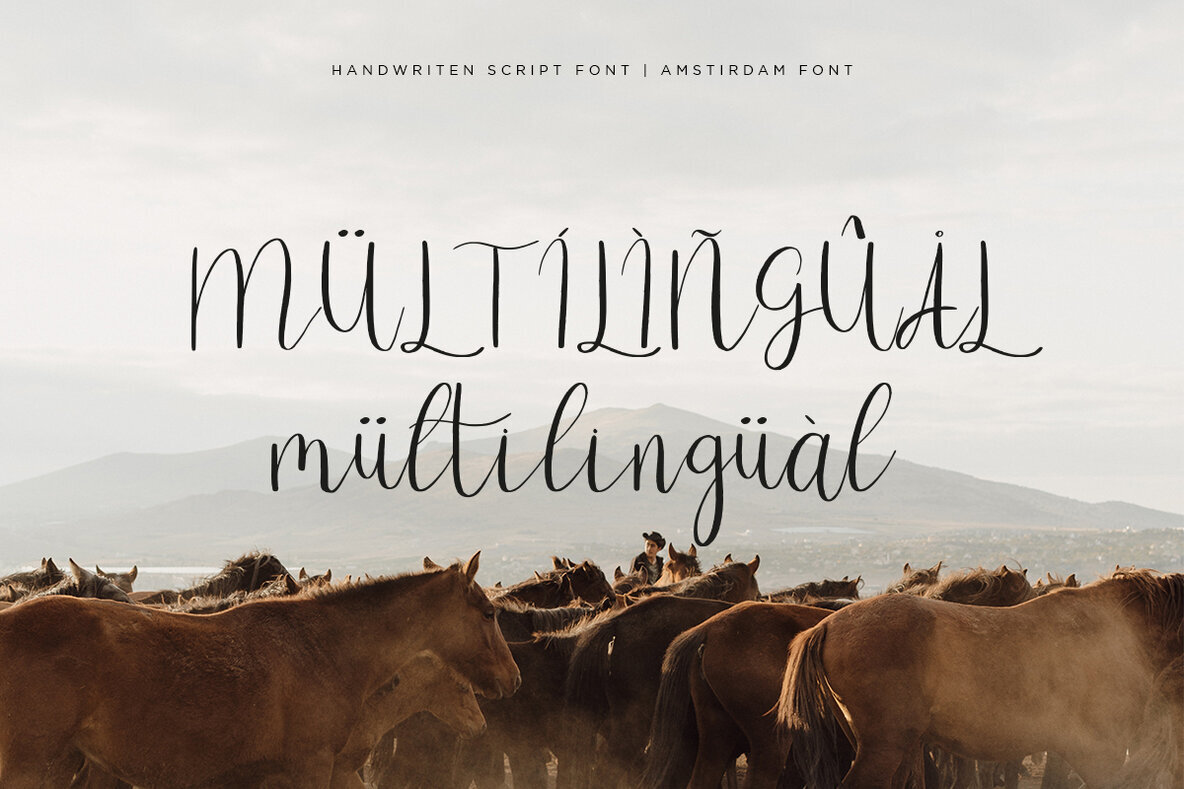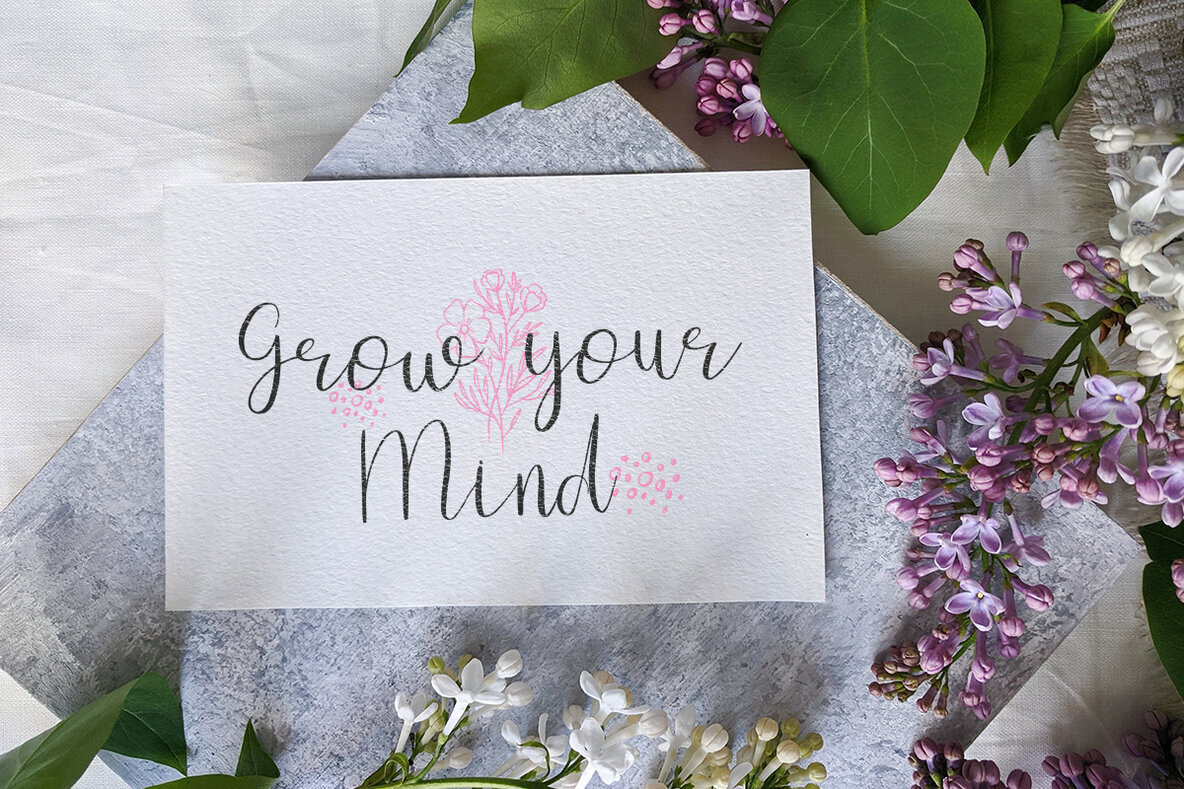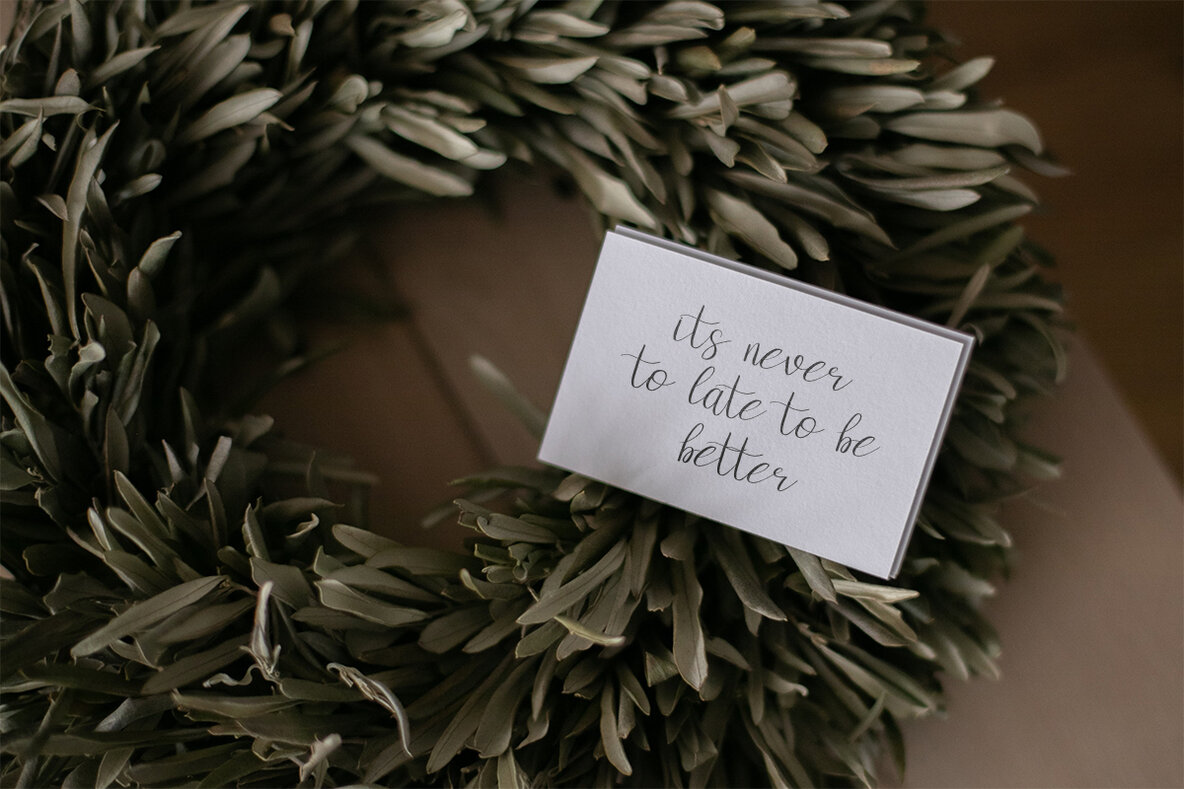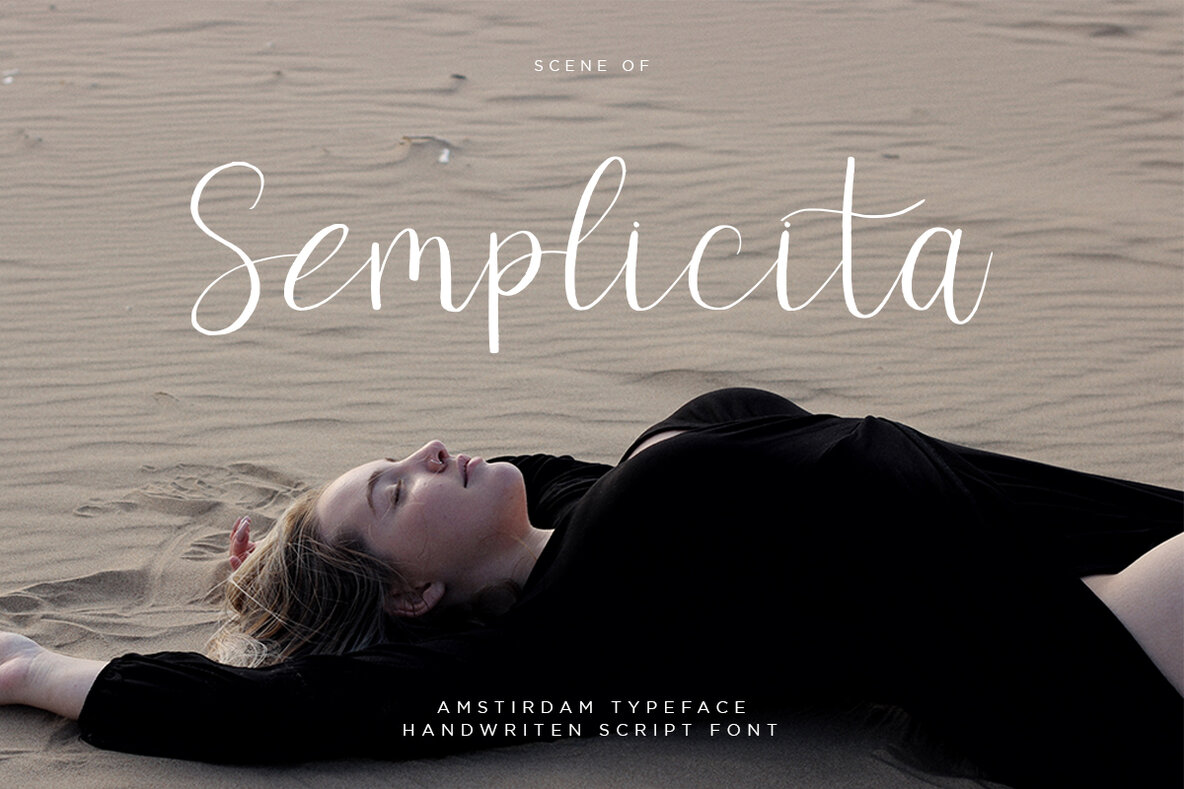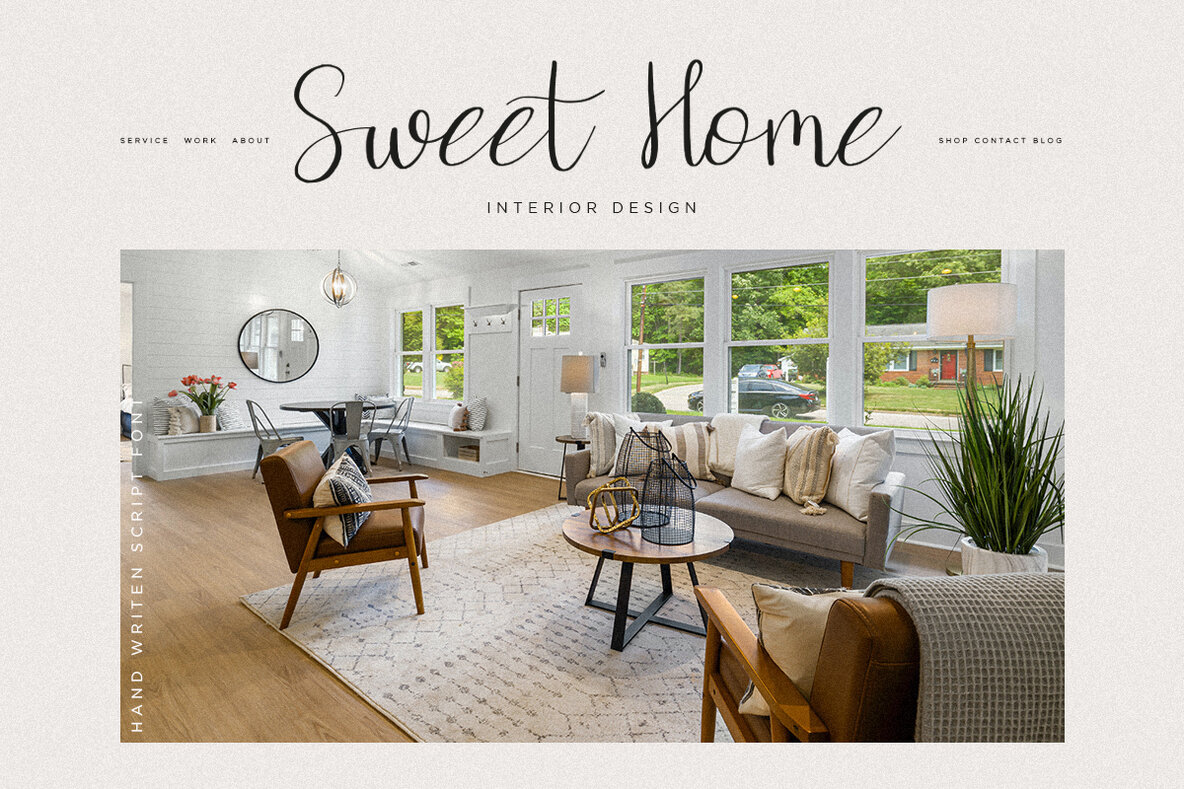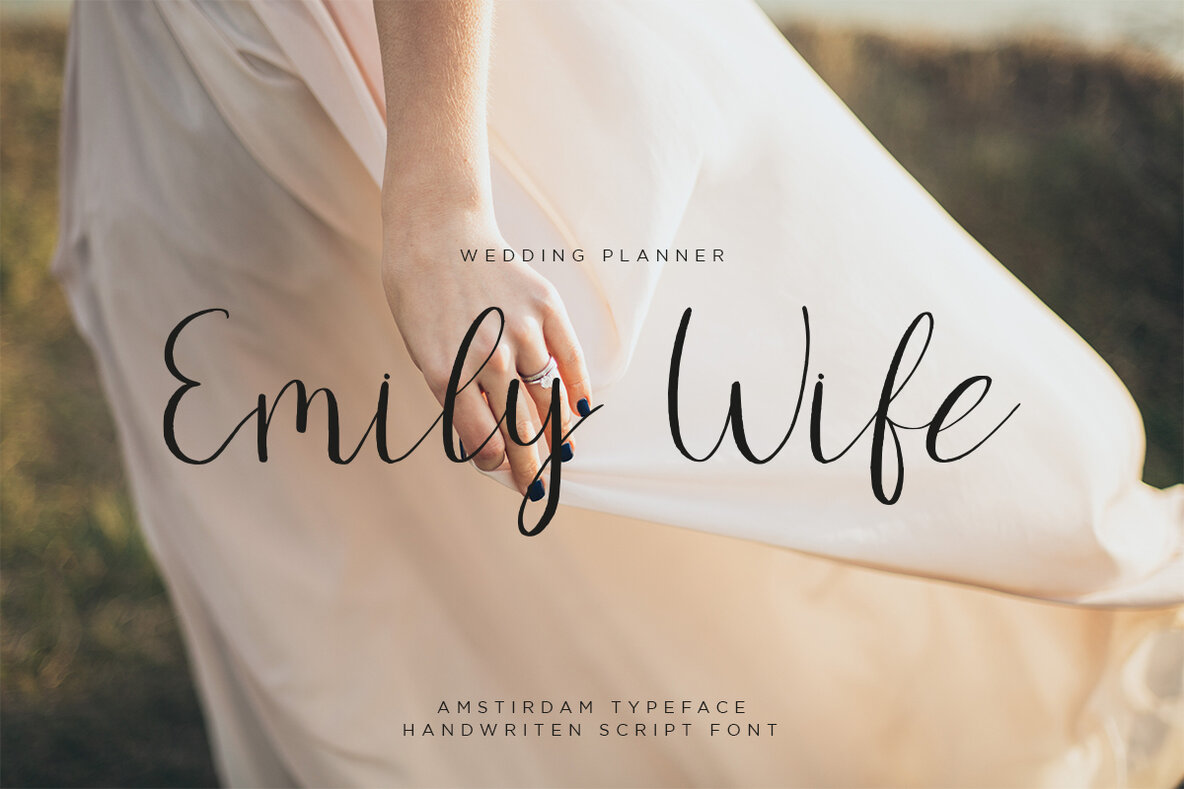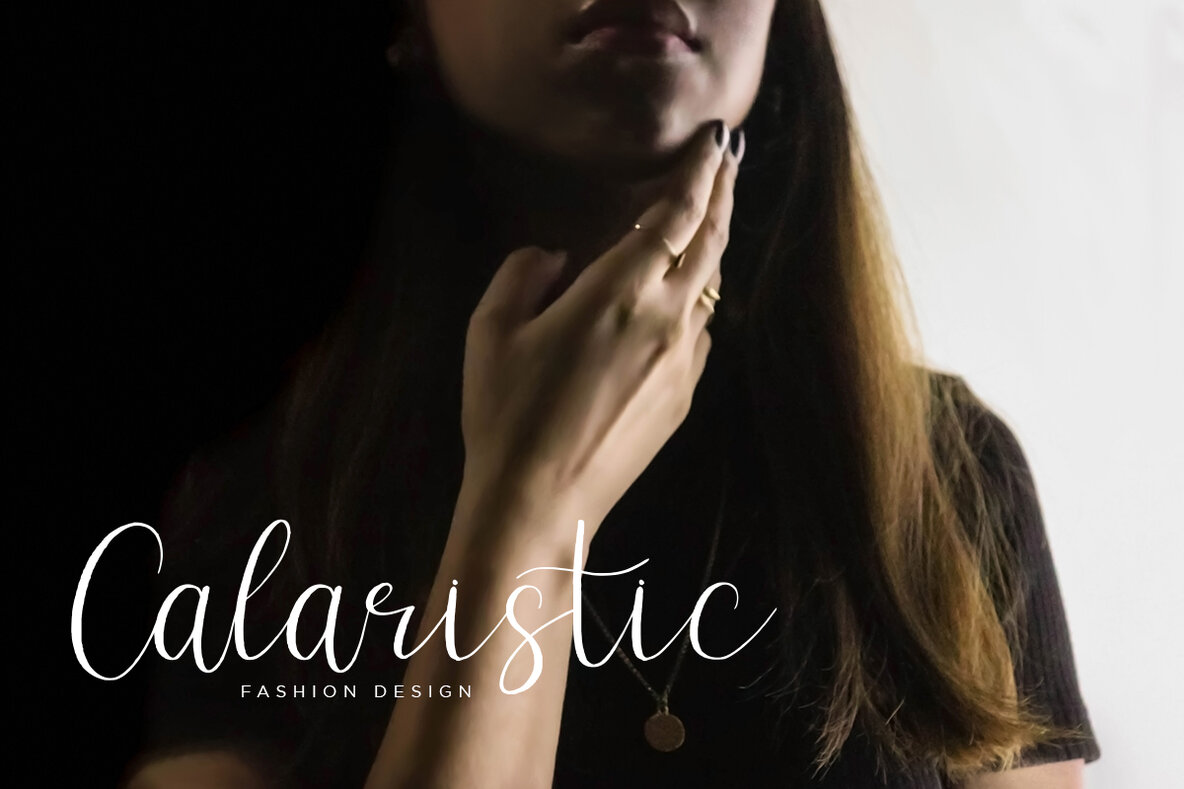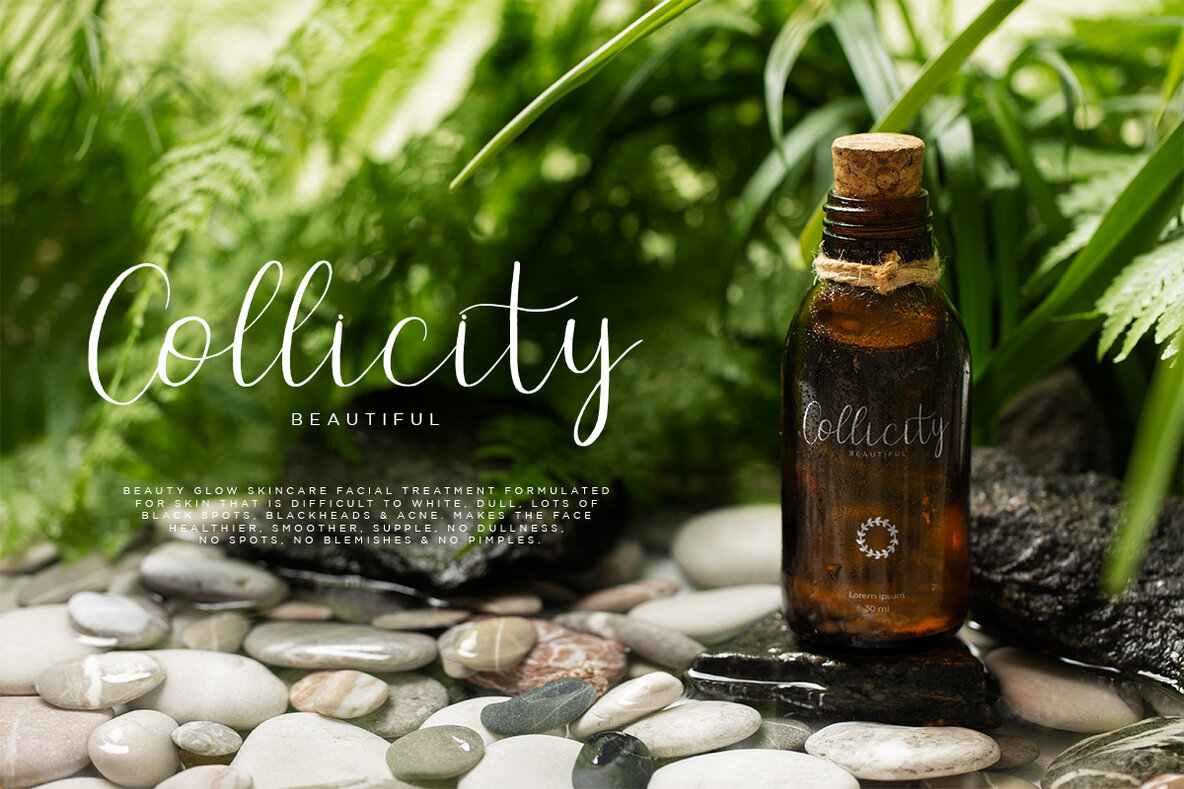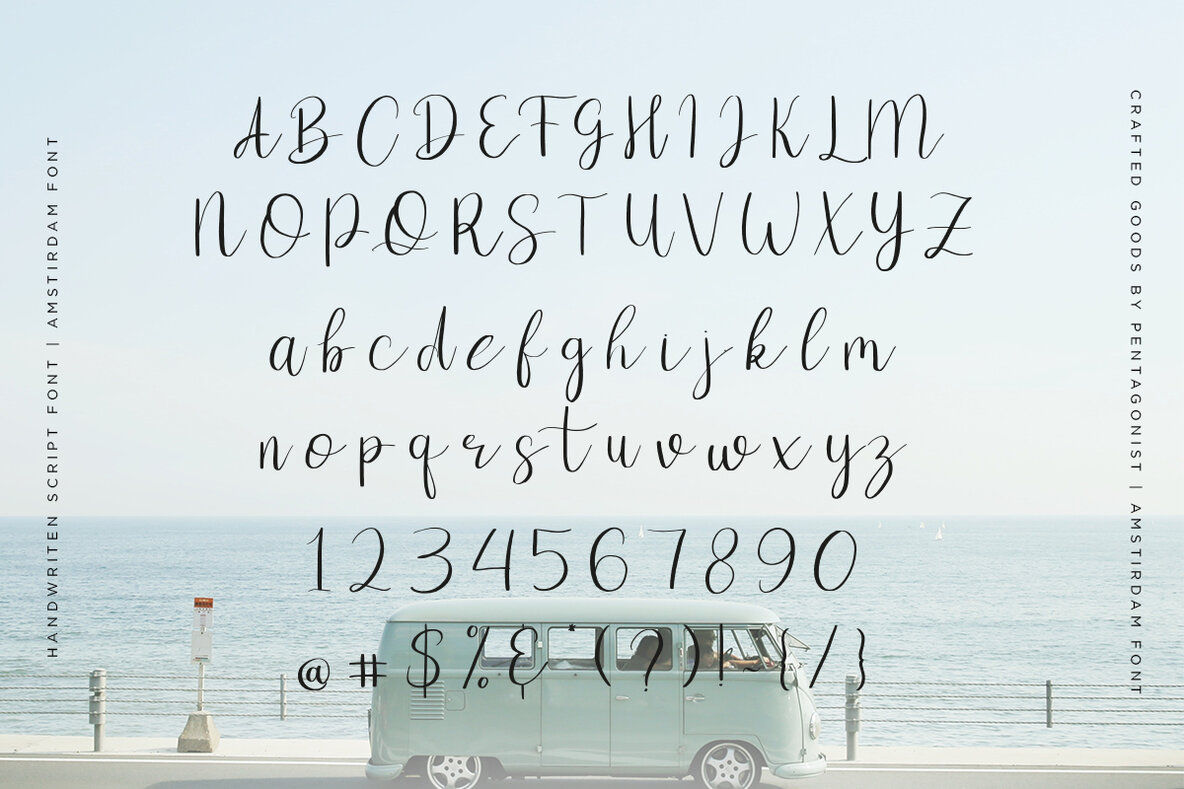
Amstirdam Font
amstirdam
Embrace the elegance of the Amstirdam font, a clean script typeface inspired by traditional handwriting. Its fluid lines and graceful curves make it an ideal choice for projects that call for sophistication and a personal touch. Whether you're designing invitations, branding materials, or digital graphics, Amstirdam effortlessly enhances visual appeal by lending an authentic handwritten feel.Amstirdam: A Clean Script Font with Handwriting Charm